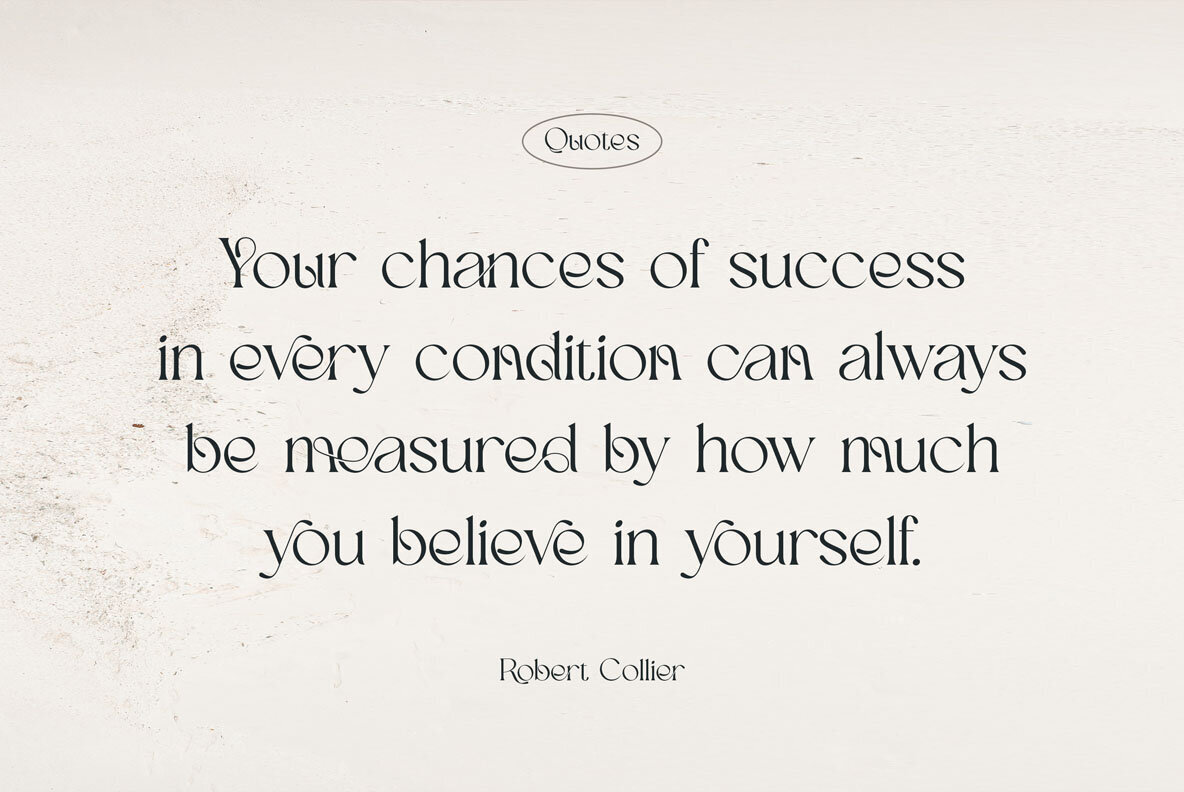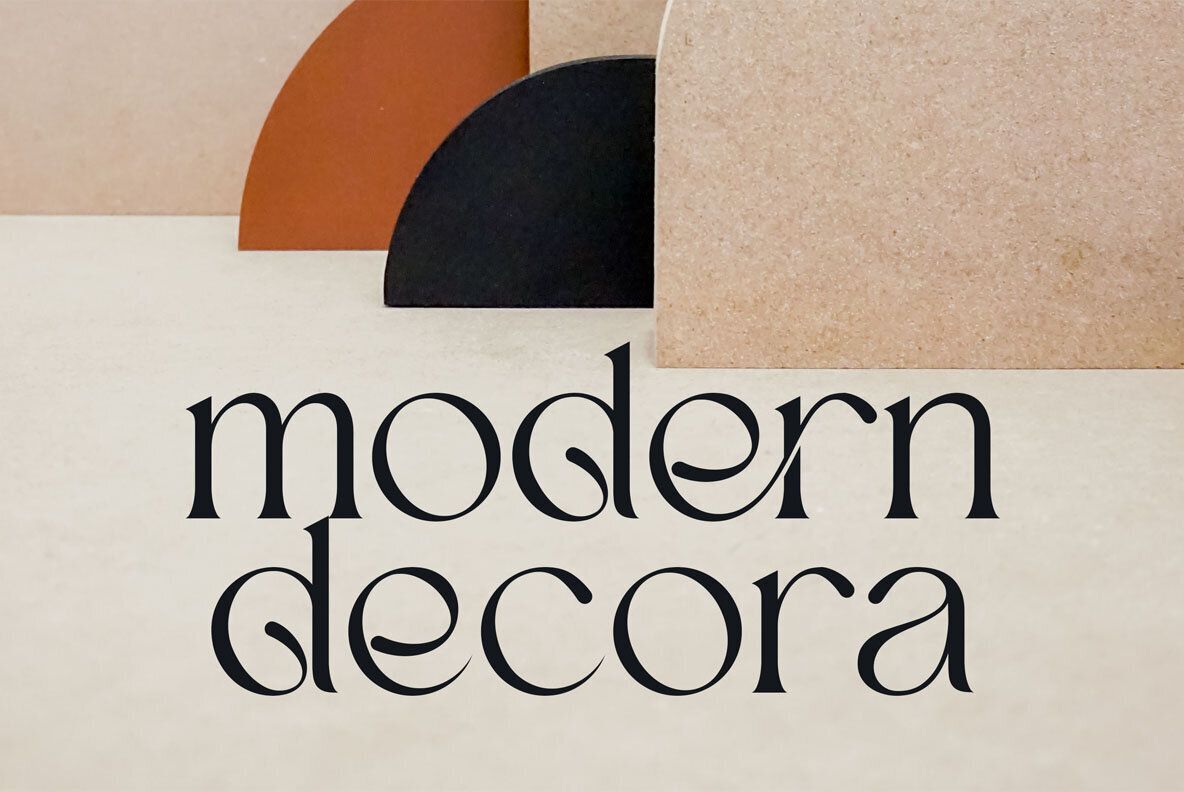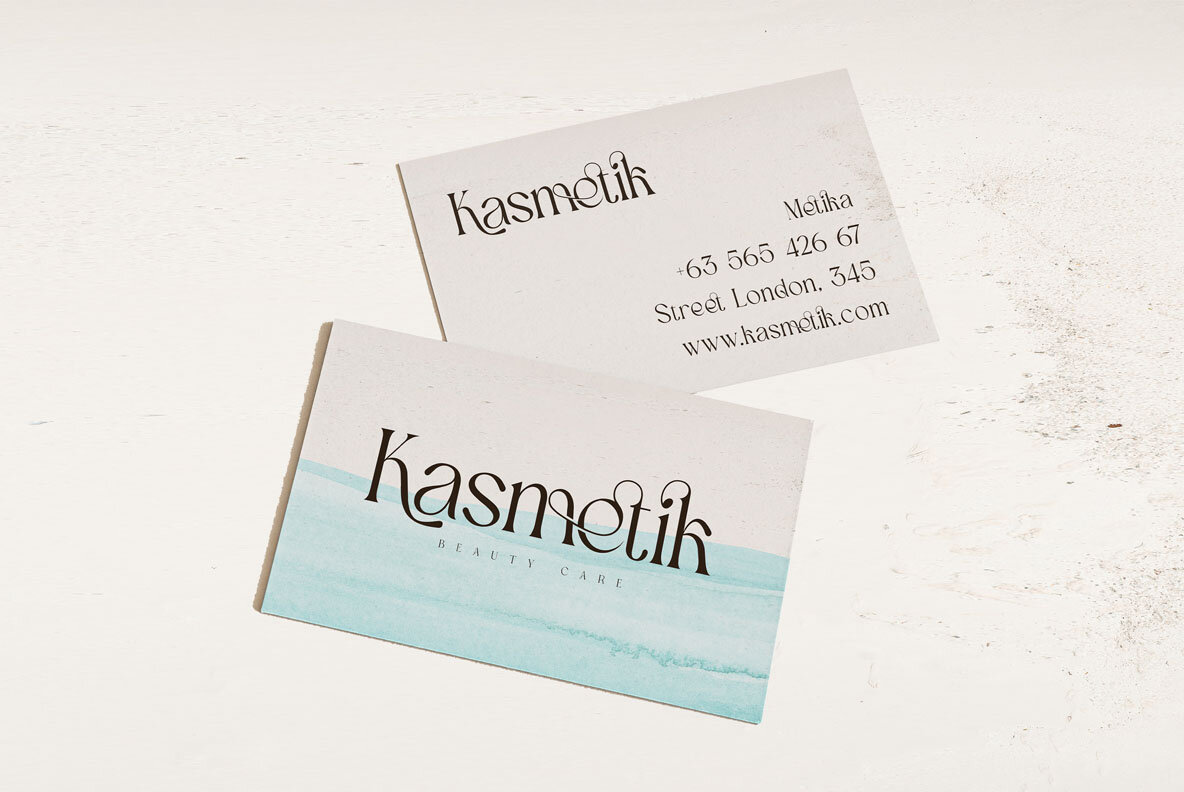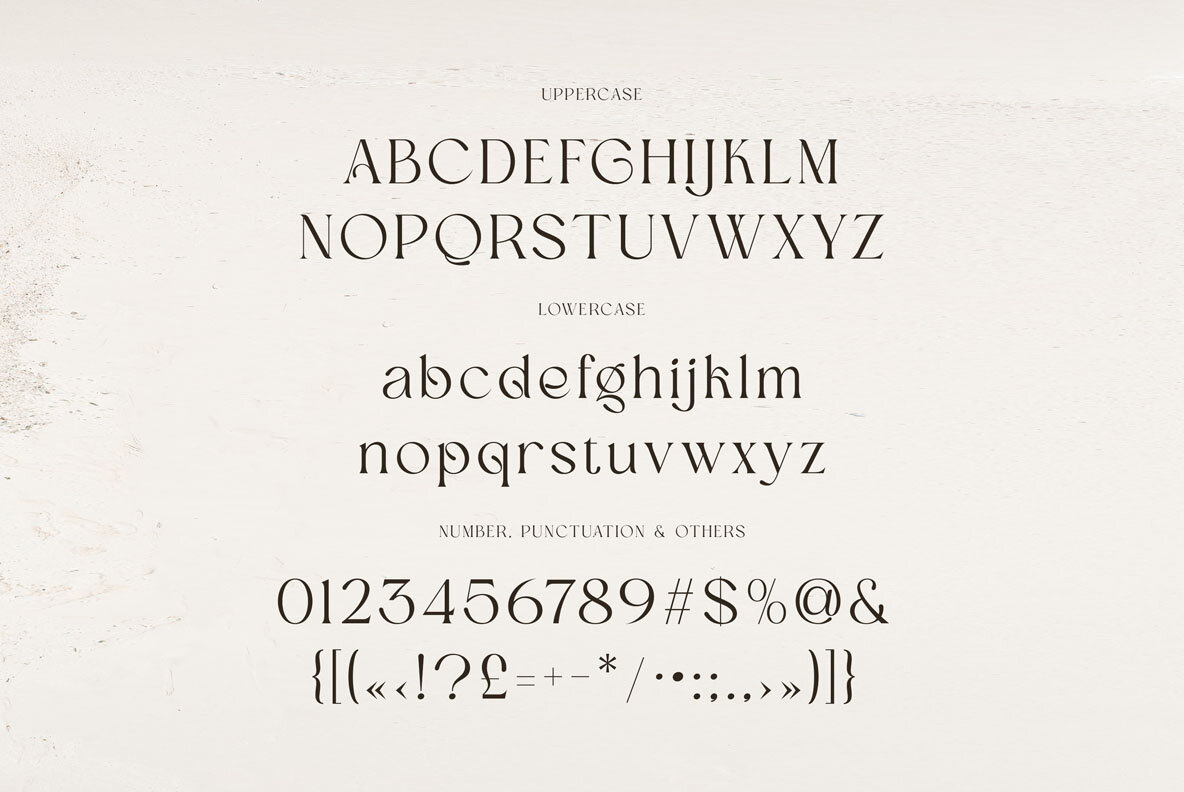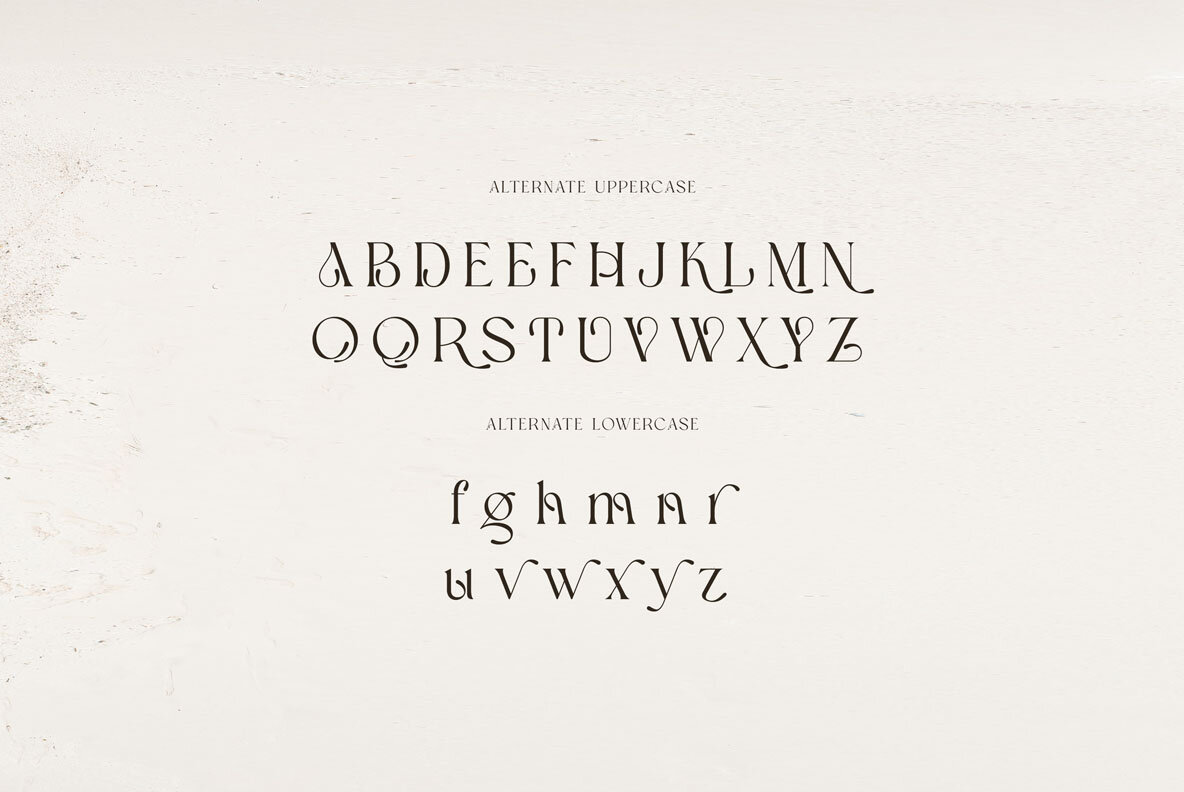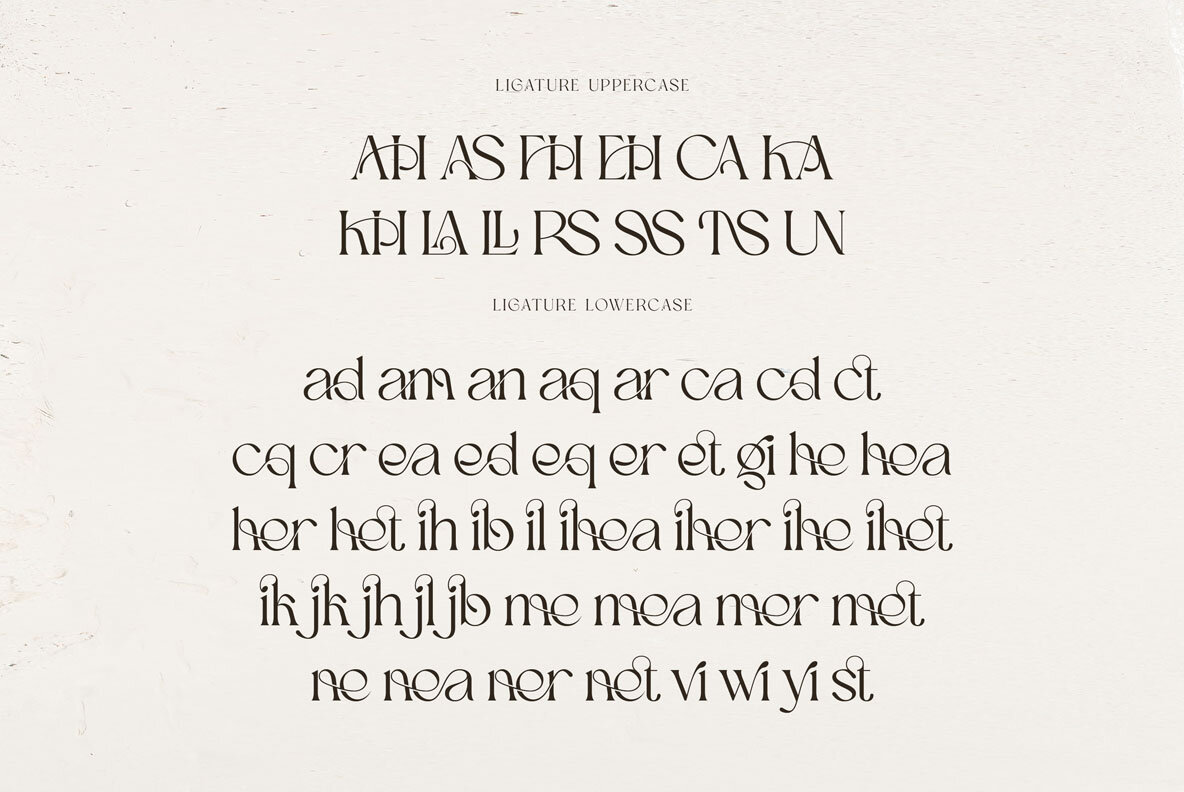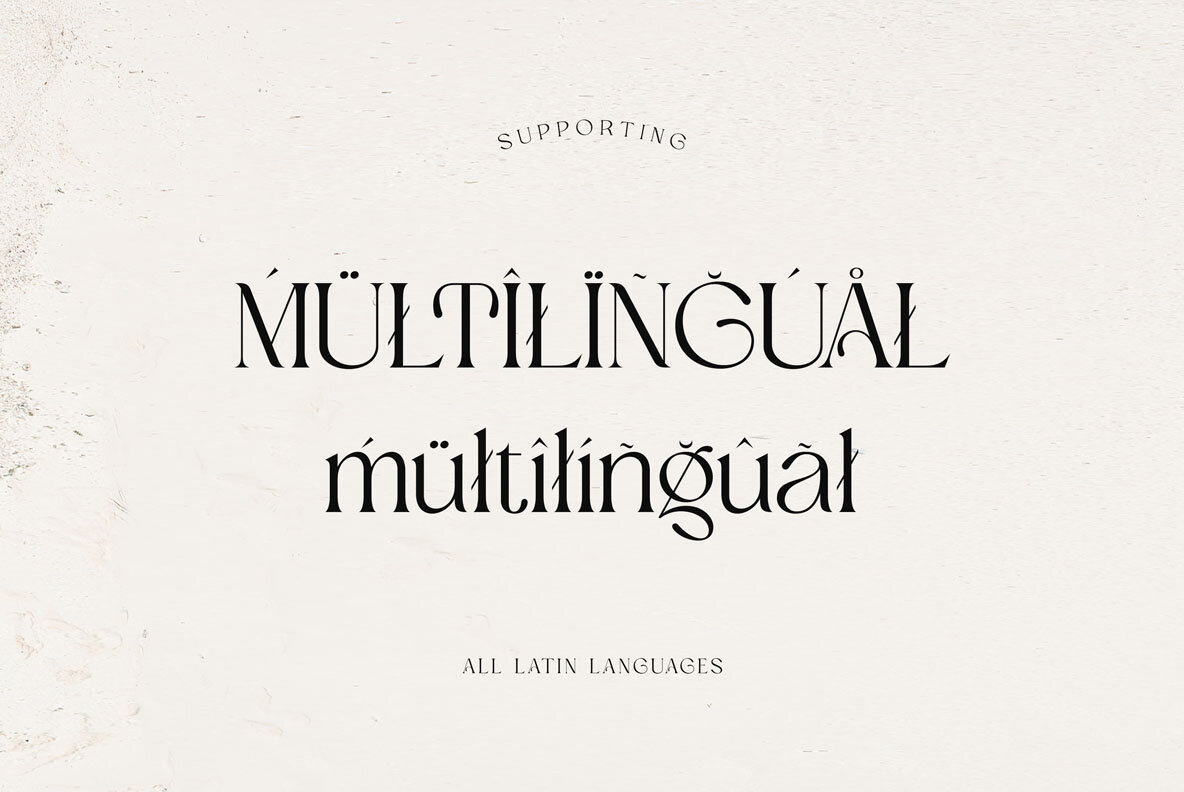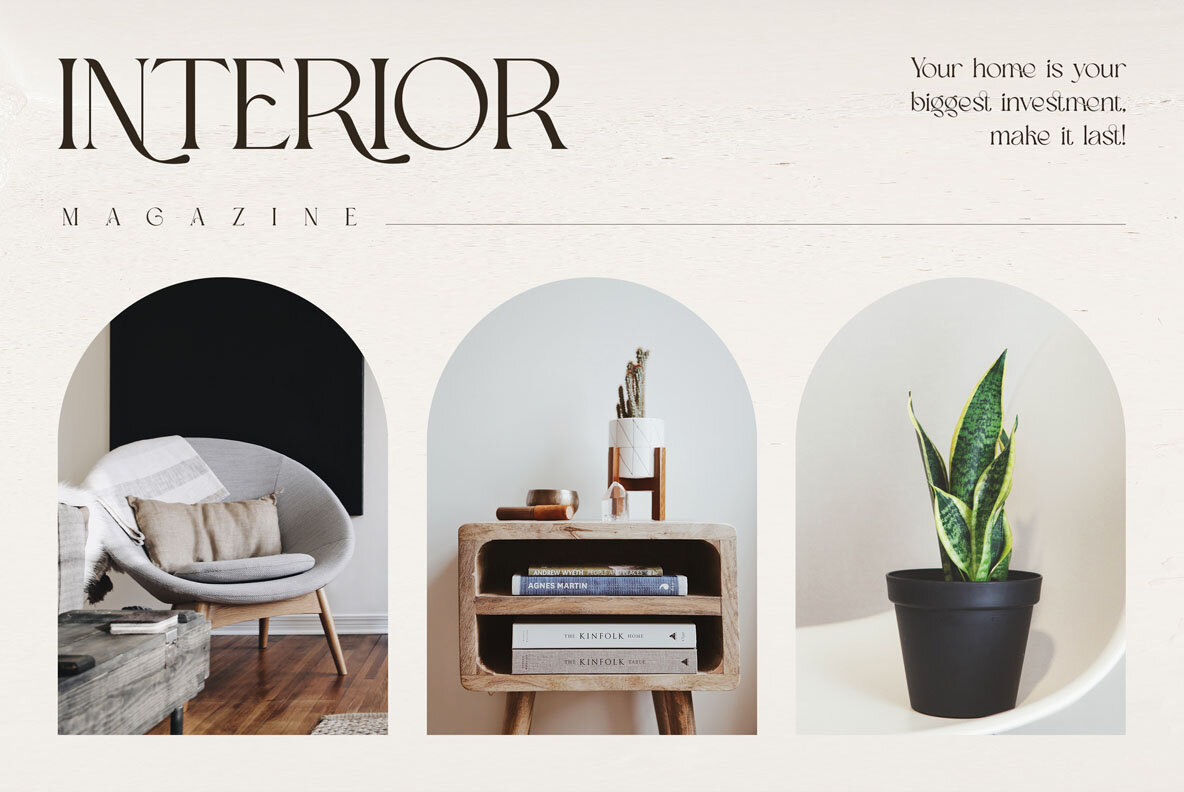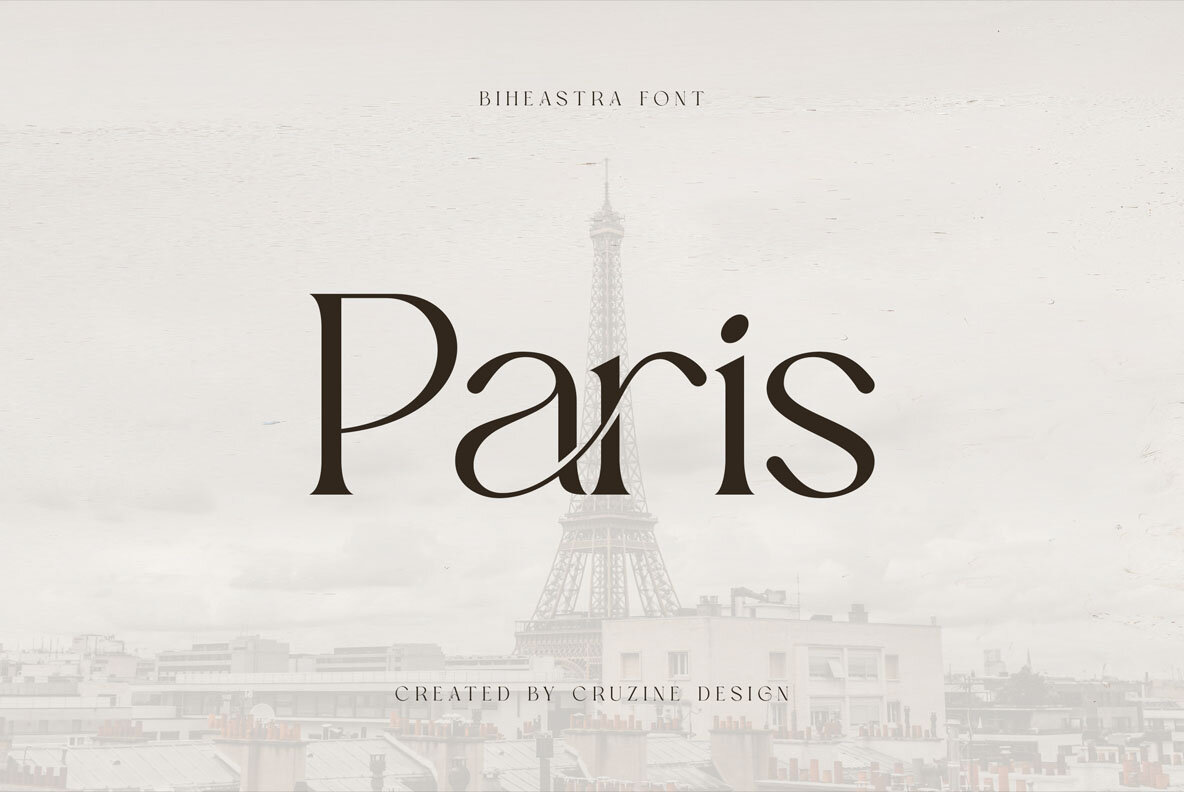
Biheastra Font
Biheastra Regular
The Biheastra font, crafted by Peter Olexa, offers a unique combination of trendy, elegant, luxury, retro, and modern styles, making it an excellent choice for contemporary branding projects. Its stylish and creative aesthetic complements a wide range of design needs. With the inclusion of numerous alternates and ligatures, Biheastra allows for the creation of distinct logos and website headers.Biheastra: A Seamless Blend of Elegant Retro and Modern Serif